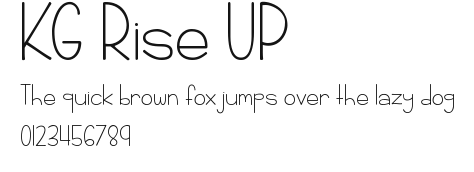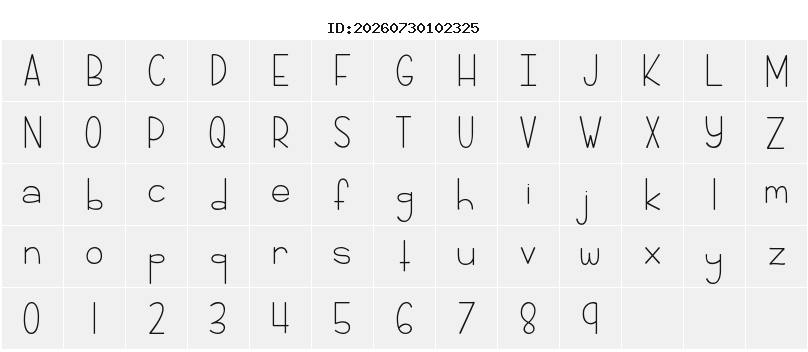
KG Rise UP Preview
• Font Name: KG Rise UP
• Font ID: KimberlyGeswein: KG Rise UP: 2016
• Full Font Name: KG Rise UP
• PostScript Name: KGRiseUP
• Character Count: 351
• Designer: Kimberly Geswein
• Manufacturer: Kimberly Geswein
About KG Rise UP.ttf
KG Rise UP.ttf is a modern, elegant sans-serif font designed for ultimate readability and visual harmony. Perfect for branding, headlines, web design, and print materials.